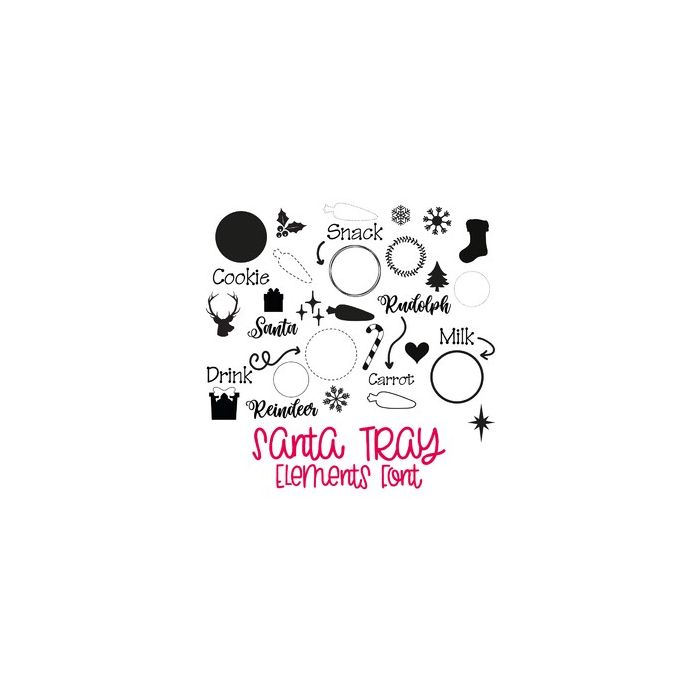
Santa Tray Elements Dingbat Font - Build your own Santa Plate or Tray with the individual elements - Circles, Carrot Outlines, Arrows, Accents & more... Contains 36 Elements in Total. All are allocated to keys and are also available via the glyphs panel / character panel.